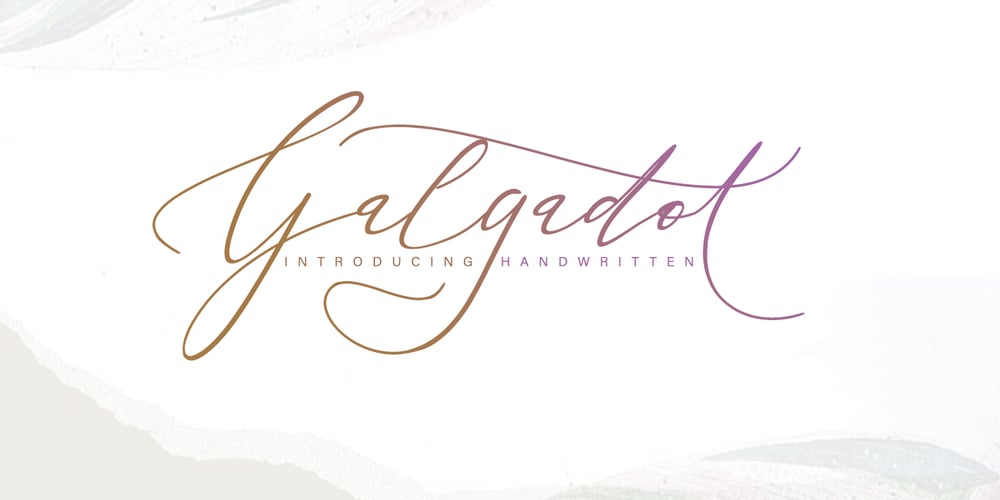
Galgadot Font Family was designed by Thomas Aradea and published by Letterara. Galgadot contains 2 styles and family package options. Galgadot is a classy, fun, fabulous, and dreamy font inspired by luxury fashion. To keep it luxurious, the Galgadot Font contains 60 ligatures, 26 titling and 10 underscores. ligature as follows: ee ll oo ss tt th ab al am an and any ar are as at att ay by ch can ck cl de ea ed eh el ell en ent er es et ett ew ey ff for get gh ght gn go ha has he her him how in ing is it kn man of ot pp st Galgadot is great for logos, printed quotes, badges, insignia, packaging, headlines, poster, t-shirt/apparel, greeting cards, and wedding invitations, and more.